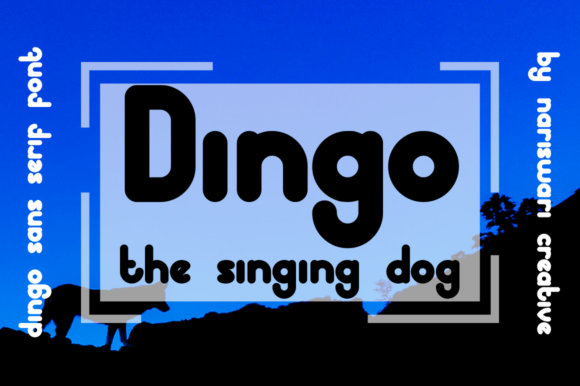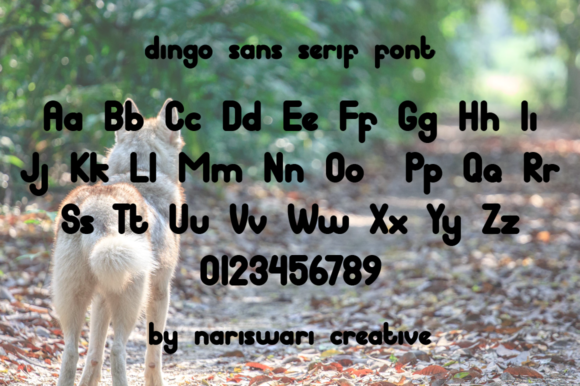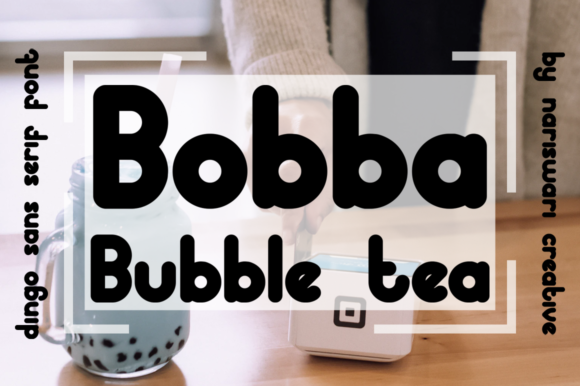
The Perfect Match for Your Creative Ideas
Have you ever stared at a blank canvas, a blank page, or a blank screen, waiting for the perfect font to bring your design to life? That moment of hesitation is a familiar feeling for many designers, but what if you had the perfect tool to simplify the process? Enter the Dingo Font, a minimal and neat sans serif font designed to elevate your creative ideas and make them stand out.
This versatile font is the perfect addition to any project, from simple typography to complex layouts. Its clean lines and modern aesthetic make it easy to match with a wide range of styles, from sleek and sophisticated to playful and whimsical. Whether you’re a seasoned designer or just starting out, the Dingo Font is a valuable asset that will help you bring your vision to life.
Dingo Font Key Features
- Font Family: Dingo Font is a sans-serif font family designed to be highly legible and versatile.
- Font Size: The font family is designed to be scalable, with sizes ranging from 8pt to 72pt, making it suitable for various applications.
- Resolution: The font is optimized for high-resolution displays, with a resolution of up to 300 DPI, ensuring crisp and clear text.
- Unique Characteristics: Dingo Font features a unique blend of modern and classic design elements, with a distinctive x-height and letter spacing that enhances readability.
- Language Support: The font family supports a wide range of languages, including Latin, Cyrillic, Greek, and many others, making it a versatile choice for global applications.
Dingo Font Review
I’ve had the chance to play around with the Dingo Font, and here are my honest thoughts.
- The font’s unique blend of modern and rustic elements is quite refreshing. It’s perfect for designs that need a touch of earthiness.
- The bold weights are excellent for headings and titles, adding a nice visual punch to your design.
- The font’s high x-height makes it easy to read, even at smaller sizes.
- The font’s italic and oblique styles could be more consistent, as some characters look a bit off.
- The font doesn’t include a wide range of languages, which might be a limitation for international designs.
Overall, the Dingo Font is a solid choice for designers looking for a unique, earthy feel. While it has its limitations, the font’s strengths make it a great addition to any design arsenal. With a bit more development, this font could truly shine.
Dingo Font Practical Application Guide
Tips for Getting the Most Out of Dingo Font
Use the Dingo Font to create bold, playful designs. Experiment with different font sizes and colors to add emphasis and create visual interest.
The Dingo Font is suitable for designs that require a fun, energetic feel, such as:
– Advertising materials
– Children’s products
– Event invitations
Alternatives to Dingo Font for Designers
Circular Std
Circular Std is a sans-serif font designed for digital interfaces. It’s a versatile font that works well for titles, headings, and body text. When to use: For clean and modern designs where a neutral font is needed.
Comparison to Dingo Font: Circular Std has a similar neutral tone, but it’s more geometric and has a slightly more condensed feel. It’s ideal for digital products and apps.
Inter is a sans-serif font designed for readability and versatility. It’s suitable for both digital and print materials. When to use: For designs where a balance between modernity and legibility is required.
Comparison to Dingo Font: Inter has a similar modern feel to Dingo Font, but it’s more rounded and has a stronger emphasis on readability. It’s ideal for designs where text needs to be easily readable.
Montserrat is a sans-serif font designed for urban environments. It’s a versatile font that works well for titles, headings, and body text. When to use: For designs that need a strong, modern feel.
Is the Dingo Font optimized for digital use?
Yes, the Dingo Font is designed to perform well in digital environments, including on-screen use and in print. It has been optimized for clarity and legibility at a range of font sizes and resolutions.